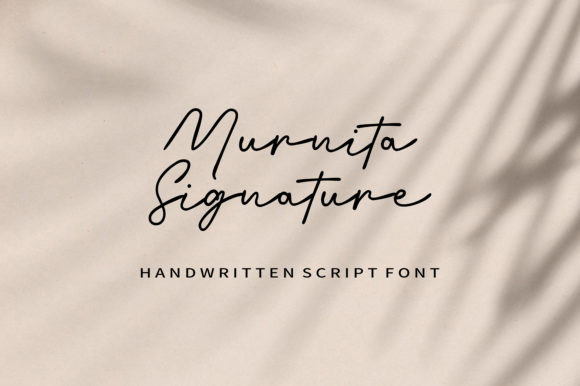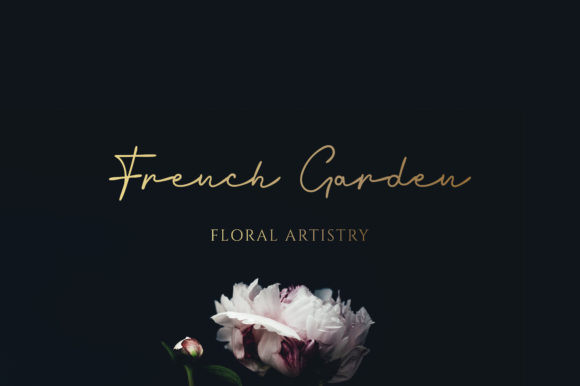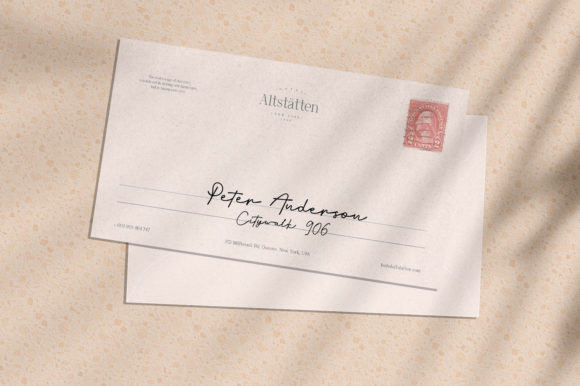
Murnita Signature Font
Murnita Signature is an amazing signature script. It includes contemporary characters and is perfect for adding a natural touch to your designs.